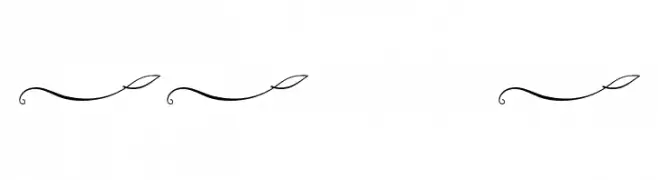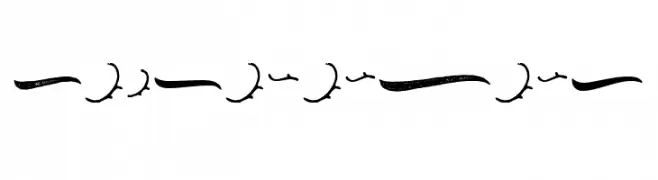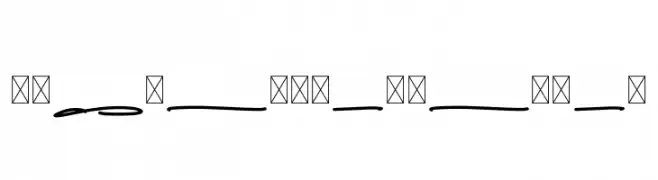
( Motokiwo - Anton Cahyono - creativemarket.com/Motokiwo?u=Motokiwo )
An elegant, flowing script font with intricate loops and swashes.
( Mr Letters - fontbundles.net/mrletters/rel=mur3FT )
An elegant script font with flowing, ornate letterforms and intricate swashes.
( Mr Letters - fontbundles.net/mrletters/rel=mur3FT )
A playful and elegant script font with fluid, cursive letterforms and decorative swashes.
( Muhammad Akbar - creativemarket.com/sinfa )
An elegant script font with high contrast and decorative swashes.
( Mycandythemes - Filia )
An elegant, cursive font with intricate loops and swashes.
( Måns Grebäck - www.mansgreback.com )
An elegant script font with intricate swashes and flourishes.
( Måns Grebäck - www.mansgreback.com )
A bold, italic script font with dynamic, flowing strokes and elegant swashes.
( Måns Grebäck - www.mansgreback.com )
A cursive, handwritten-style font with elegant loops and swashes.
( Måns Grebäck - www.mansgreback.com )
A bold, expressive script font with dynamic curves and decorative swashes.
( Måns Grebäck - www.mansgreback.com )
An elegant, flowing script font with high contrast and graceful swashes.
( Måns Grebäck - www.mansgreback.com )
An ornate and flowing script font with elaborate swashes and flourishes.
( Octotype - www.foundmyfont.com/ )
An elegant script font with flowing cursive style and intricate swashes.
( OldStudioo - Muhammad Ilham - www.fontdraft.com )
A graceful script font with decorative swashes and flowing cursive style.
( OldStudioo - Muhammad Ilham - www.fontdraft.com )
An elegant script font with flowing, cursive letters and intricate swashes.
( OldStudioo - Muhammad Ilham - www.fontdraft.com )
An elegant script font with flowing cursive letters and intricate swashes.
( OldStudioo - Muhammad Ilham - www.fontdraft.com )
A flowing, elegant script font with high contrast and graceful swashes.
( Peter Olexa - www.dealjumbo.com )
A grunge-style font with elegant swashes and an inline design.
( PutraCetol Studio - Putra Novembria Candra Kusuma - creativemarket.com/putracetol )
An elegant script font with flowing, interconnected letters and elaborate swashes.
( Rometheme - Yahdi Kumala - creativemarket.com/Rometheme?u=Rometheme )
An elegant script font with flowing, ornate cursive letters and intricate swashes.
( Siwox Studios - bit.ly/saffatinmyfonts )
An elegant script font with flowing, interconnected letters and delicate swashes.
( Sronstudio - Yusron Billah )
A flowing, cursive script with elegant loops and swashes.
( Syahputra - creativemarket.com/Bexxtype )
A flowing, cursive font with elegant loops and swashes.
( Syahputra - creativemarket.com/Bexxtype )
An elegant and flowing script font with intricate loops and swashes.
( Syahputra - creativemarket.com/Bexxtype )
An elegant script font with flowing, interconnected letters and decorative swashes.
( Thirtypath - www.thirtypath.com )
An elegant script font with ornate swashes and flowing cursive letterforms.
( Thirtypath - www.thirtypath.com )
An elegant script font with intricate swashes and flowing letterforms.
( Thirtypath - www.thirtypath.com )
A decorative and handwritten font with playful curves and elegant swashes.
( Tomás Arriola )
A flowing, cursive font with elegant loops and swashes, offering a handwritten appearance.
( Typhoon Type - Suthi Srisopha - www.typhoontype.net )
An elegant script font with intricate swashes and high contrast, perfect for formal and artistic uses.
( Typhoon Type - Suthi Srisopha - www.typhoontype.net )
An elegant script font with ornate, flowing letterforms and decorative swashes.
( Typhoon Type - Suthi Srisopha - www.typhoontype.net )
An elegant script font with flowing cursive letters and intricate swashes.
( Typhoon Type - Suthi Srisopha - www.typhoontype.net )
A flowing, cursive script font with elegant loops and swashes.
( Typhoon Type - Suthi Srisopha - www.typhoontype.net )
A dynamic and elegant script font with flowing letterforms and intricate swashes.
( Typhoon Type - Suthi Srisopha - www.typhoontype.net )